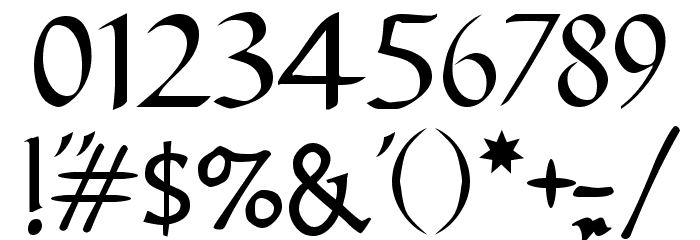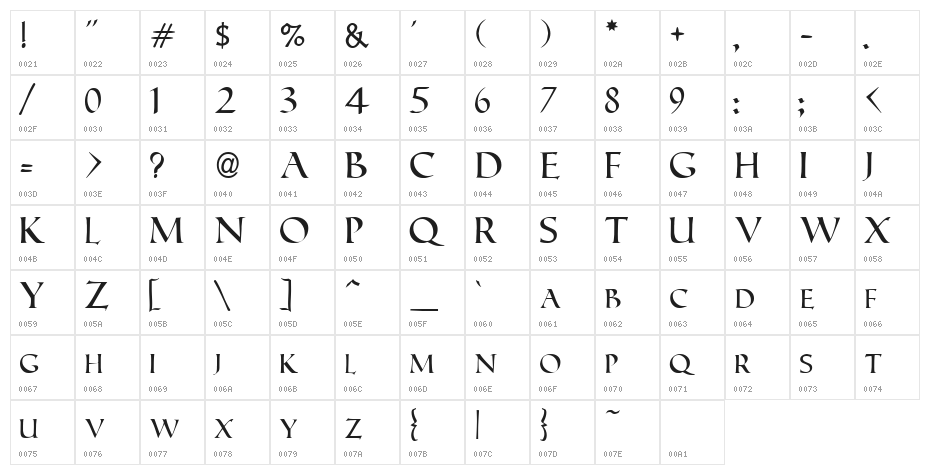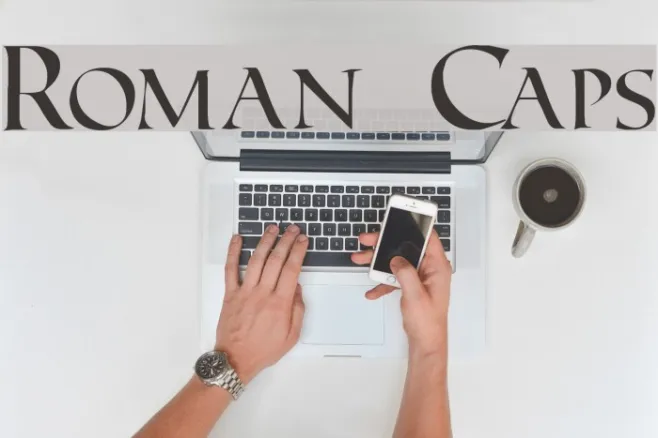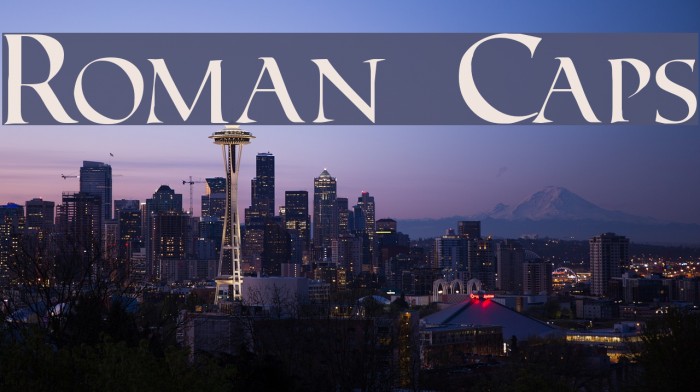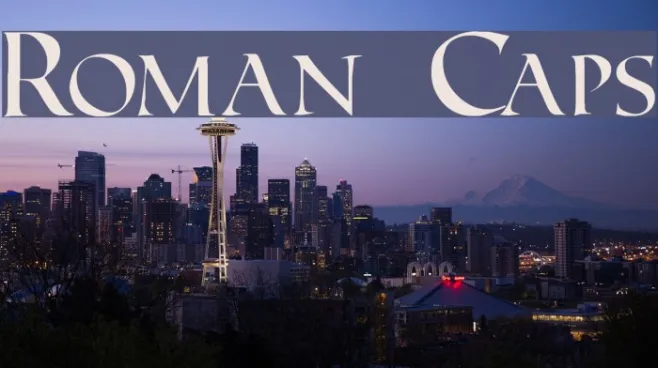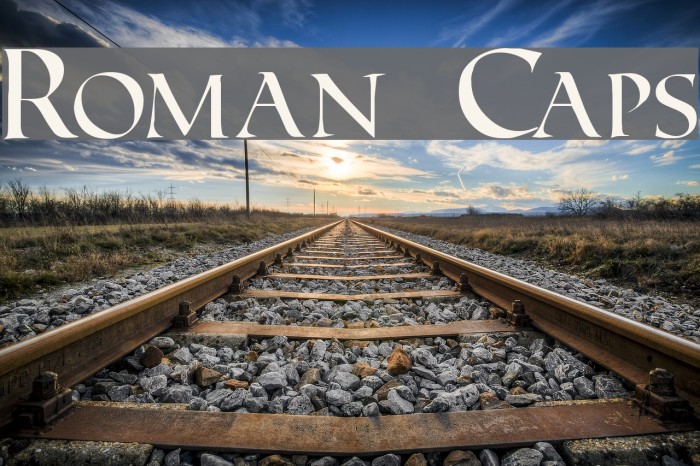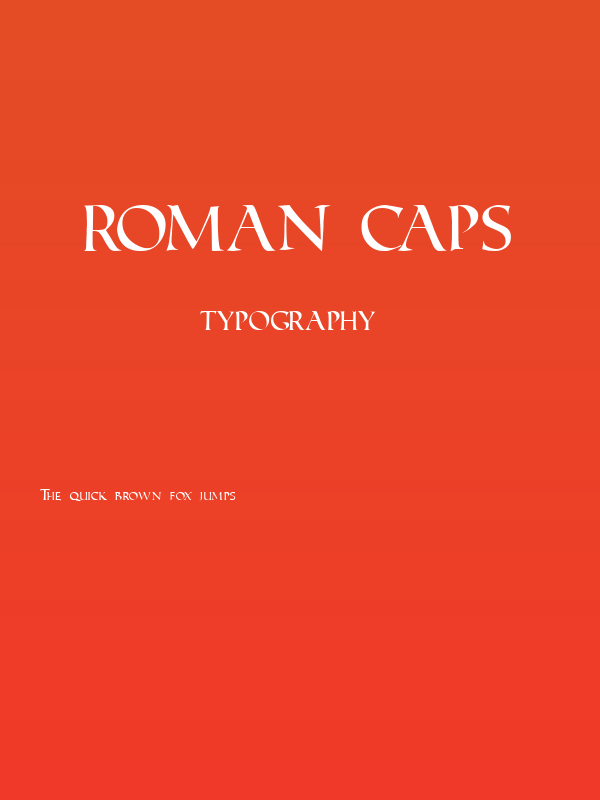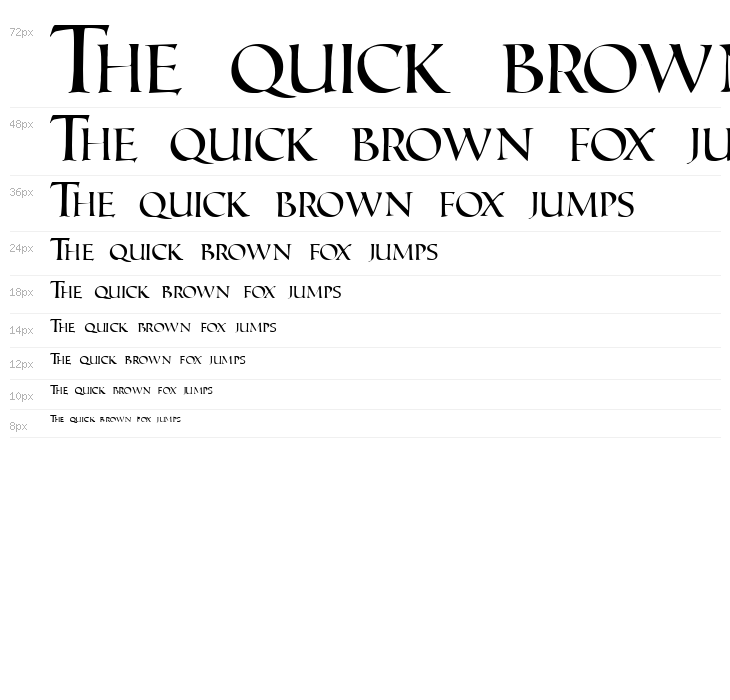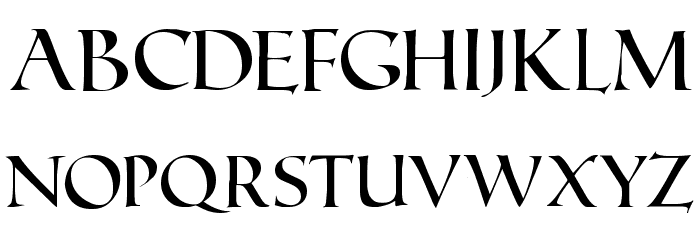
Roman Caps Font
Roman Caps Description
This font exhibits a classic and elegant style, reminiscent of traditional Roman inscriptions. The characters are sharply defined with a high contrast between thick and thin strokes, giving them a refined and sophisticated appearance. The serifs are pronounced and angular, adding to the font's formal and authoritative feel. The numerals and special characters maintain the same stylistic features, ensuring consistency across all glyphs. This font is ideal for projects that require a touch of historical gravitas and timeless elegance.
| Proposed Projects | Ideal for formal invitations, historical documents, book covers, and luxury branding. |